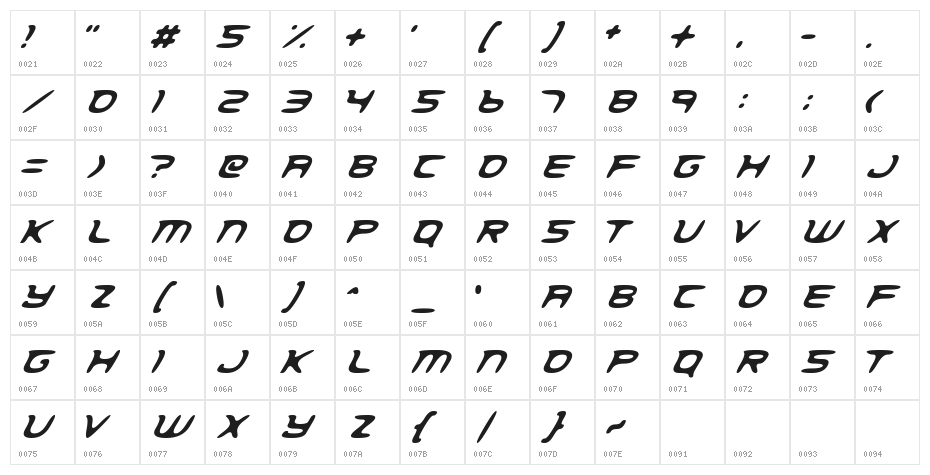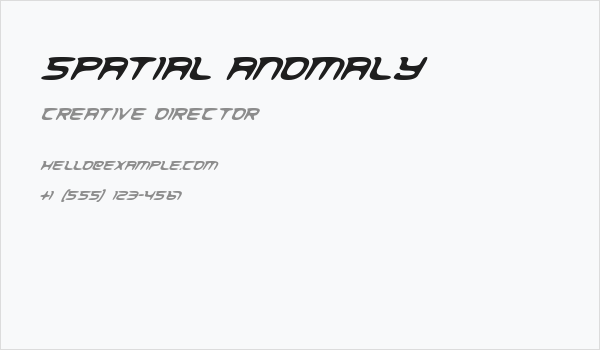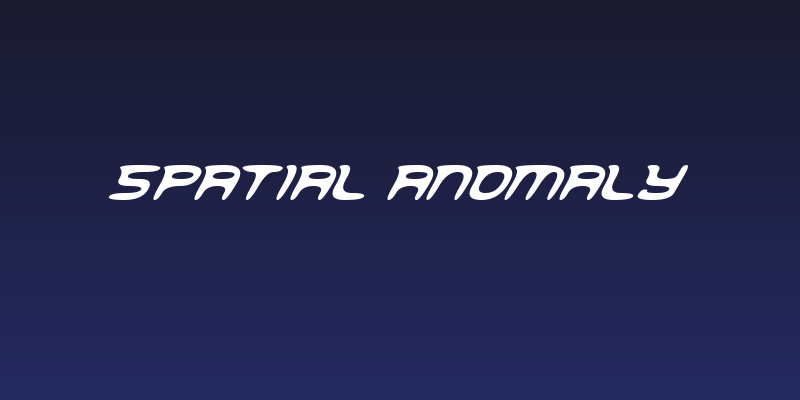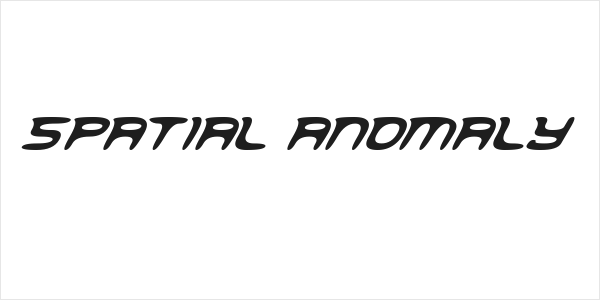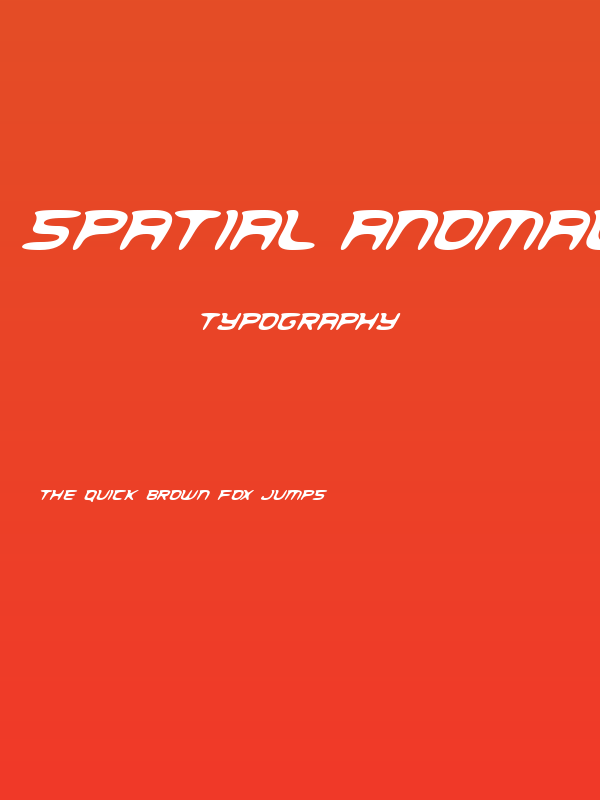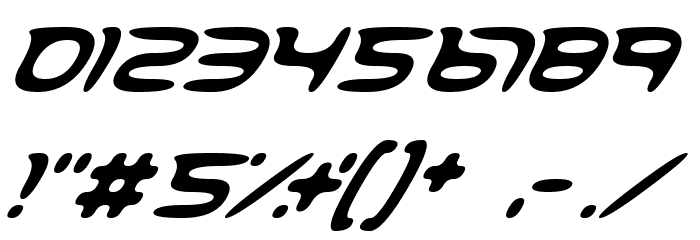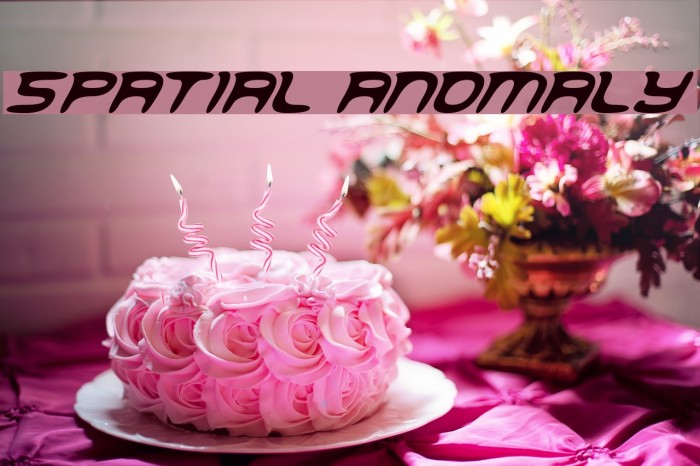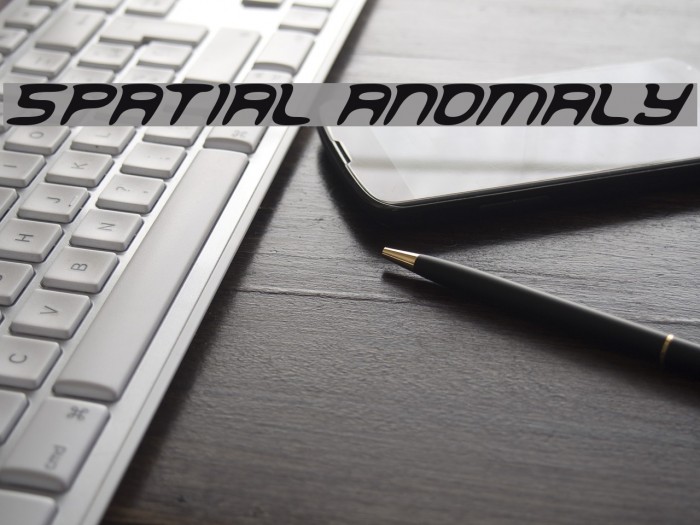
Spatial Anomaly Font
Spatial Anomaly Description
This font features a futuristic and dynamic design, characterized by its smooth, flowing curves and slightly italicized appearance. The letters have a unique, almost aerodynamic quality, with rounded edges and a consistent stroke width that gives it a sleek and modern look. The numbers and special characters maintain this style, ensuring a cohesive appearance across all glyphs. The font's design suggests movement and speed, making it ideal for projects that require a sense of modernity and innovation.